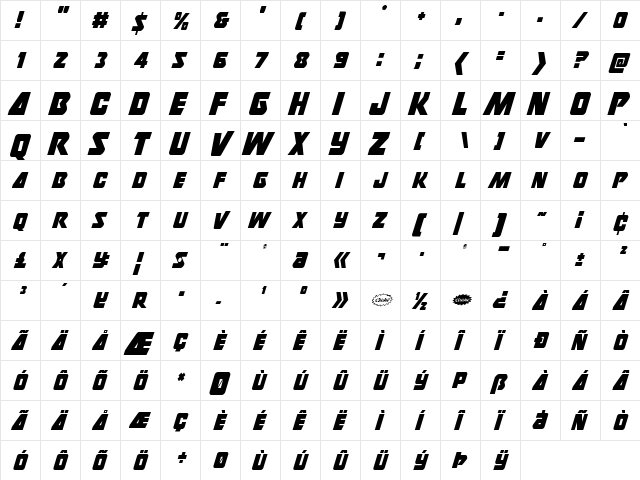
Thunderstrike Condensed Condensed
Design Context for Thunderstrike Condensed Typeface
Thunderstrike Condensed is a composed and adaptable typeface that performs quietly and consistently across a wide range of design contexts. The condensed width makes it efficient for tight spaces without sacrificing legibility.
Pro Tip: Use Thunderstrike Condensed in both headline and body roles to test its range before committing to a single application.